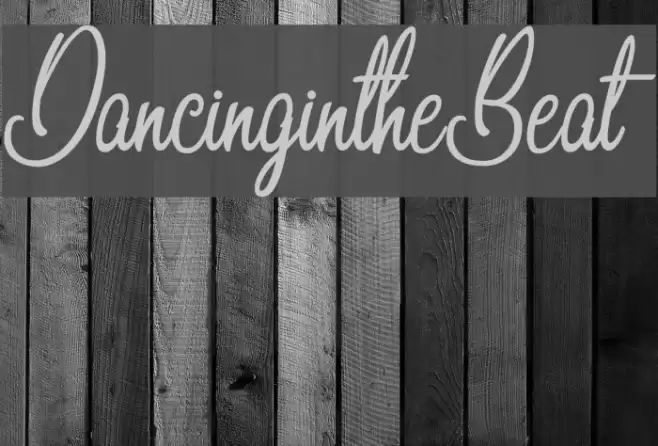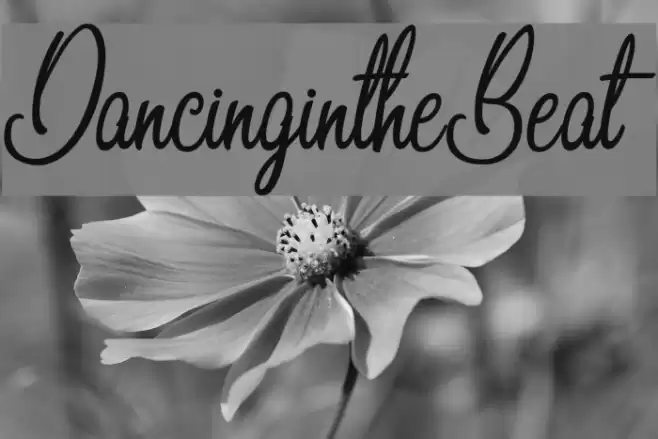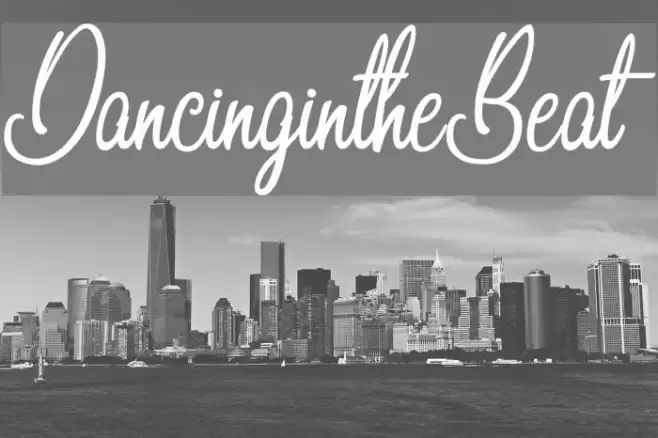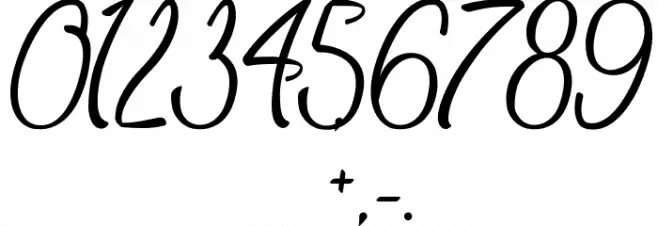
DancingintheBeat Font
DancingintheBeat Description
This font features a lively and dynamic script style with a handwritten appearance. The uppercase letters are elongated and connected, giving a sense of fluidity and movement. The lowercase letters maintain a consistent flow, with smooth curves and loops that enhance its elegant look. Numbers are bold and slightly rounded, complementing the overall aesthetic. Special characters are designed to match the playful and energetic vibe of the font, making it suitable for creative and expressive projects.
A lively, handwritten script font with fluid, connected letters from Uncategorized fonts.
- Proposed Projects: Ideal for invitations, greeting cards, branding, and social media graphics.
- Use Case: Logos, Headlines, Invitations